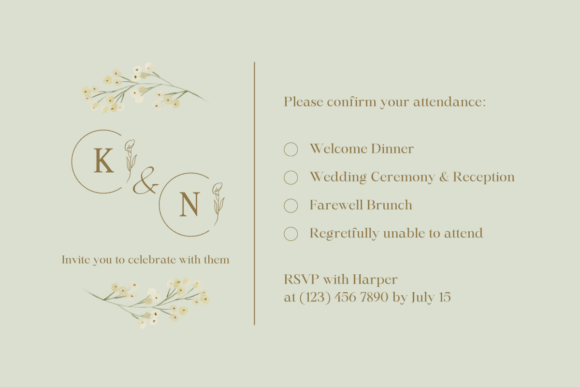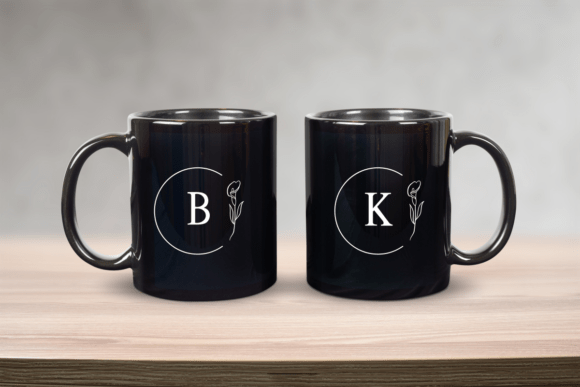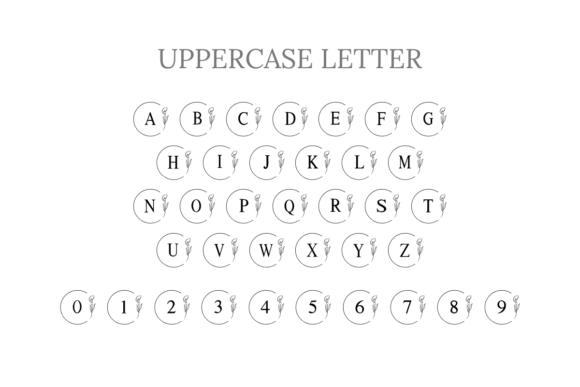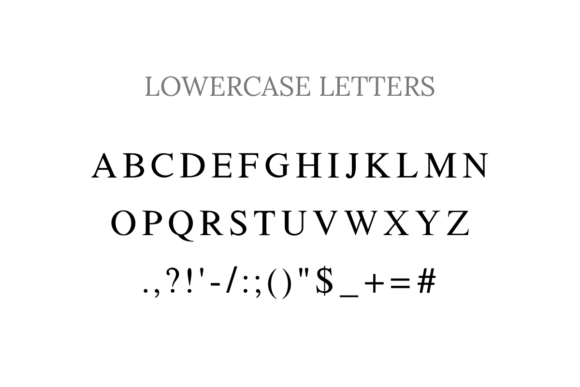
The Perfect Touch of Elegance: Unveiling the Calla Monogram Font
Have you ever been captivated by the beauty of a perfectly crafted wedding invitation or a boutique logo that exudes romance and sophistication? That’s the magic of great design. As a creative, you know how a single font can elevate a project from ordinary to extraordinary. For me, that font is the Calla Monogram Font – a delicate, floral masterpiece that adds a touch of whimsy and elegance to any design.
This beautiful font is designed with the calla lily in mind, its delicate petals and stems woven into a stunning monogram that’s perfect for logos, wedding designs, and boutique branding. The Calla Monogram Font is a valuable tool for designers looking to add a touch of romance and sophistication to their projects. Whether you’re working on a wedding invitation or a high-end fashion brand, this font is sure to impress.
Calla Monogram Font Key Features
- Unique Monogram Font Design: Calla Monogram Font is a beautiful and elegant monogram font designed to create custom monograms for personal or professional use.
- Character Count: Includes a range of characters, including uppercase and lowercase letters, numbers, and special characters, making it suitable for a variety of applications.
- Unique Characteristics: Features a beautiful, hand-drawn design with intricate details and flourishes, making it perfect for adding a touch of elegance to any project.
Calla Monogram Font Review
At first glance, the Calla Monogram Font is a visually stunning addition to any project. It’s ✨ elegant ✨ and ✨ sophisticated ✨, making it perfect for high-end designs. The font’s unique monogram design and intricate details truly set it apart from other fonts in the market.
Here are some of the things that I love about the Calla Monogram Font:
- ✨ Versatility: The font can be used for a wide range of designs, from wedding invitations to luxury branding.
- ✨ Customization: The font’s intricate details can be customized to fit your specific design needs.
- ✨ High-quality vectors: The font comes with high-quality vector files, making it easy to resize and manipulate.
- ⚠️ Limited character set: The font only includes a limited character set, which may not be ideal for projects that require a wide range of characters.
- ⚠️ Difficult to use for small text: The font’s intricate details can make it difficult to use for small text sizes.
Overall, the Calla Monogram Font is a beautiful addition to any design project. While it has its limitations, its unique design and customization options make it a great choice for high-end designs.
Getting the Most Out of Calla Monogram Font
Use Calla Monogram Font for high-end designs, such as wedding invitations, luxury branding, and special occasion stationery. Experiment with different font sizes, colors, and combinations to create a unique and sophisticated look.
Calla Monogram Font is ideal for:
Luxury branding and packaging
Special occasion stationery and gift cards
High-end event invitations and programs